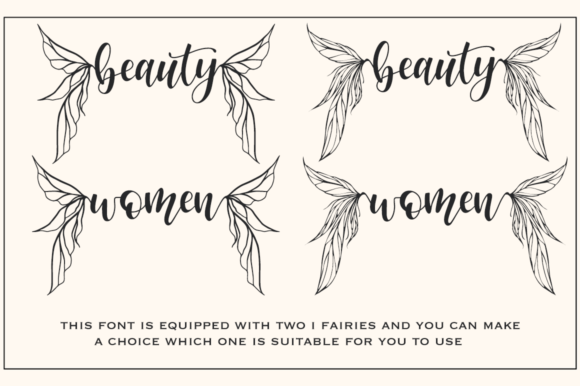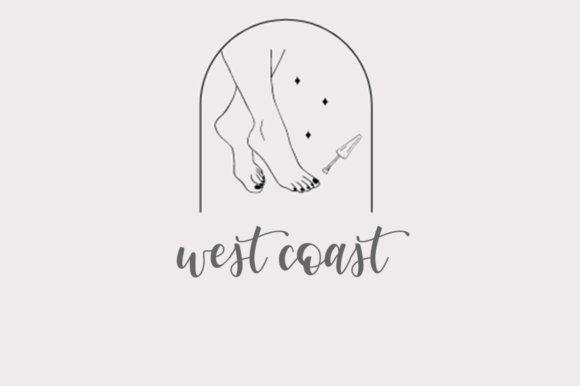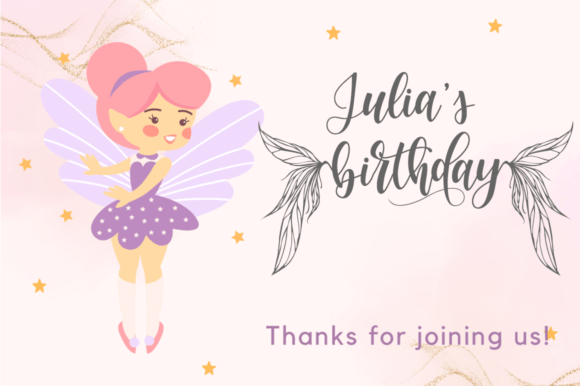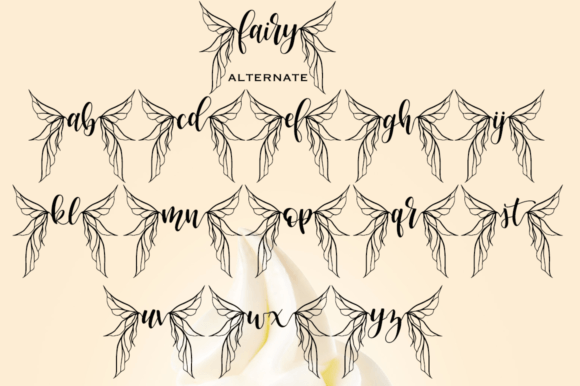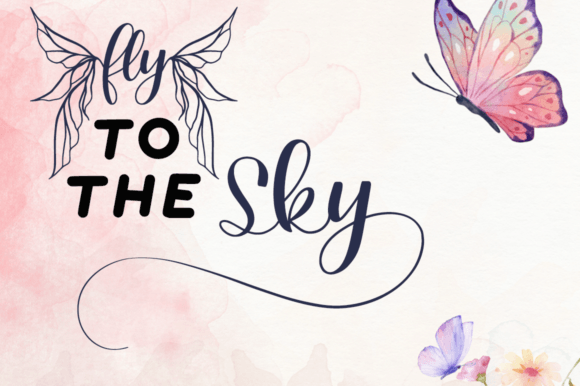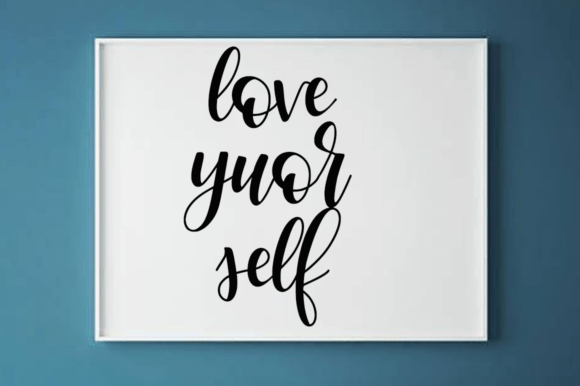
Fairy Wing Font: Elevate Your Designs with a Touch of Whimsy
Are you a designer or crafter looking for a font that can add a touch of magic to your creations? Look no further than the Fairy Wing Font. This modern calligraphy design is perfect for those who want to infuse their work with a sense of whimsy and elegance. In this article, we’ll take a closer look at the Fairy Wing Script, its features, and how you can use it to take your designs to the next level.
What is Fairy Wing Script?
Fairy Wing Script is a beautiful, modern calligraphy font that is designed to add a touch of sophistication and elegance to your designs. With its casual and flowing lines, this font is perfect for creating stunning visual content that captures the imagination. The Fairy Wing Script comes in a regular style, making it easy to use and versatile for various design applications.
Key Features of Fairy Wing Script
- Swash Characters: The Fairy Wing Script includes swash characters that add a touch of elegance and sophistication to your designs.
Uses of Fairy Wing Script
The Fairy Wing Script is a versatile font that can be used for a wide range of design applications. Here are some ideas to get you started:
- Logos: Create a stunning logo for your business or brand with the Fairy Wing Script.
- Product Packaging: Add a touch of elegance to your product packaging with this beautiful font.
- Wedding Invitations: Make your wedding invitations truly special with the Fairy Wing Script.
- Branding: Use the Fairy Wing Script to create a consistent brand identity across all your marketing materials.
- Headlines: Add a touch of whimsy to your headlines with this beautiful font.
- Signage: Create eye-catching signage with the Fairy Wing Script.
- Labels: Add a touch of elegance to your labels with this beautiful font.
- Signatures: Use the Fairy Wing Script to create a unique and elegant signature.
- Book Covers: Create a stunning book cover with the Fairy Wing Script.
- Posters: Add a touch of magic to your posters with this beautiful font.
- Quotes: Create inspiring quotes with the Fairy Wing Script.
Tips for Using Fairy Wing Script
Here are some tips to help you get the most out of the Fairy Wing Script:
- Experiment with different sizes: The Fairy Wing Script looks great in various sizes, so don’t be afraid to experiment and find the perfect size for your design.
- Pair with other fonts: Try pairing the Fairy Wing Script with other fonts to create a unique and interesting design.
- Use swash characters: The swash characters in the Fairy Wing Script can add a touch of elegance and sophistication to your designs.
The Fairy Wing Script is a beautiful and versatile font that can add a touch of magic to your designs. With its modern calligraphy design, swash characters, and PUA Unicode encoding, this font is perfect for designers and crafters who want to create stunning visual content. Whether you’re creating logos, product packaging, wedding invitations, or social media graphics, the Fairy Wing Script is a great choice. So why not give it a try and see how it can elevate your designs?